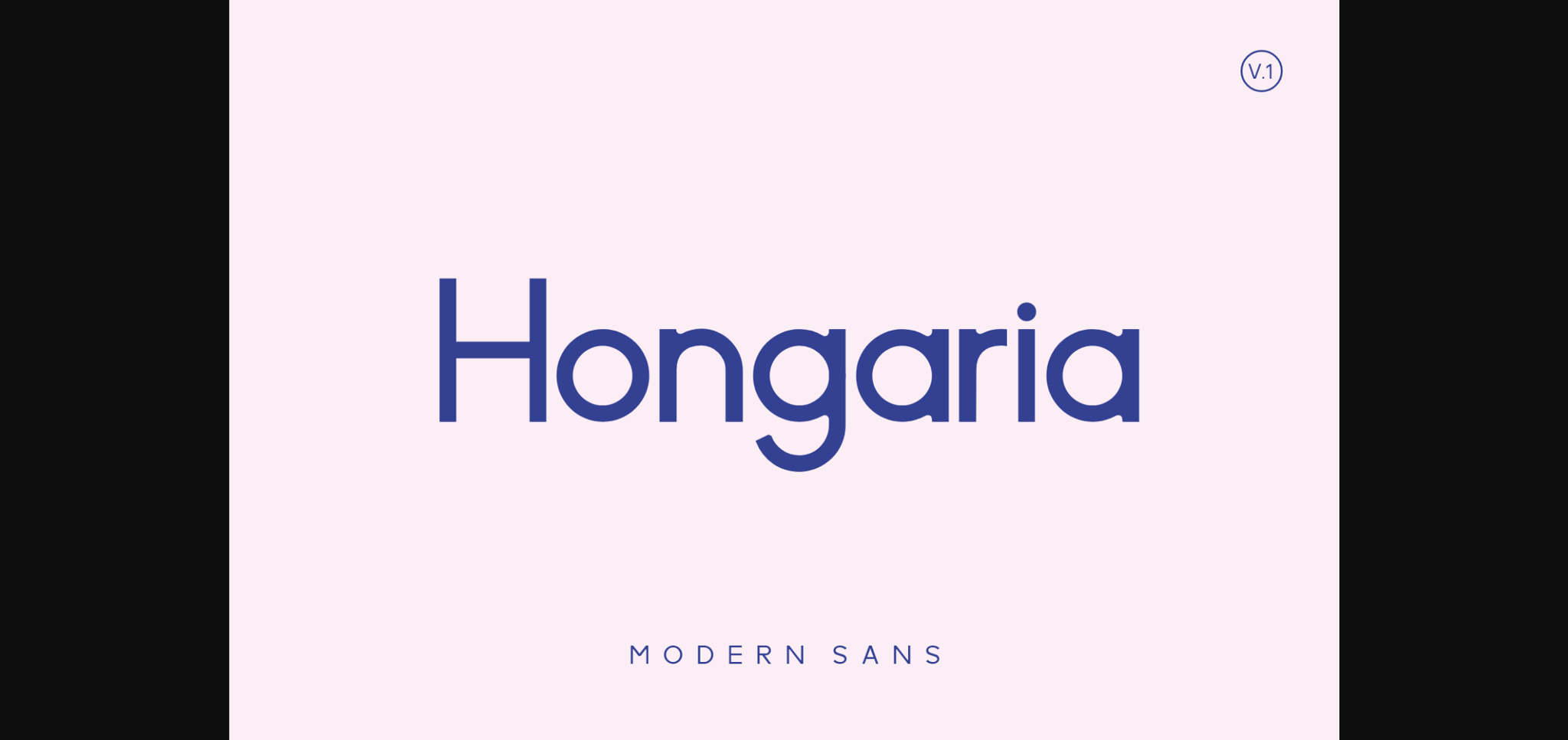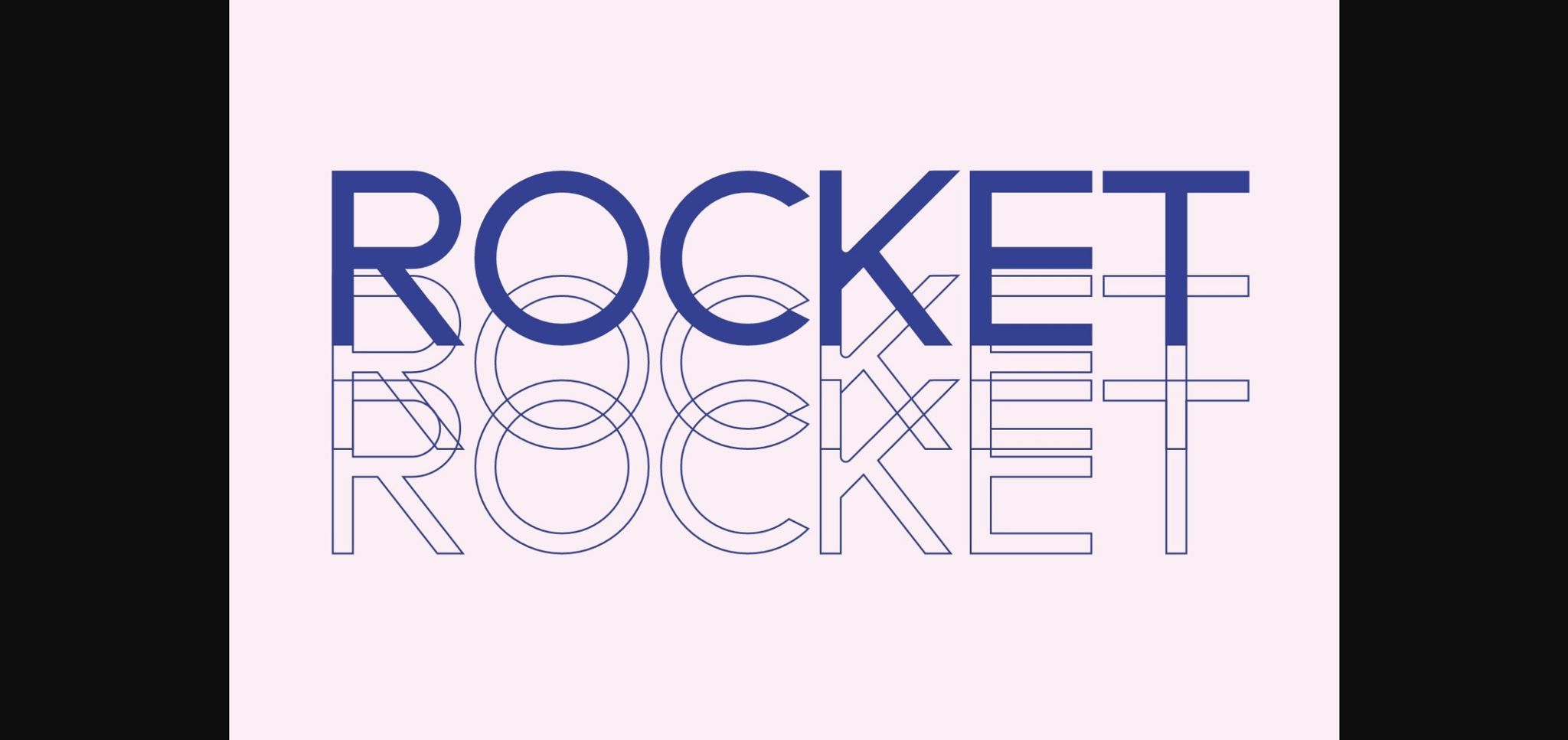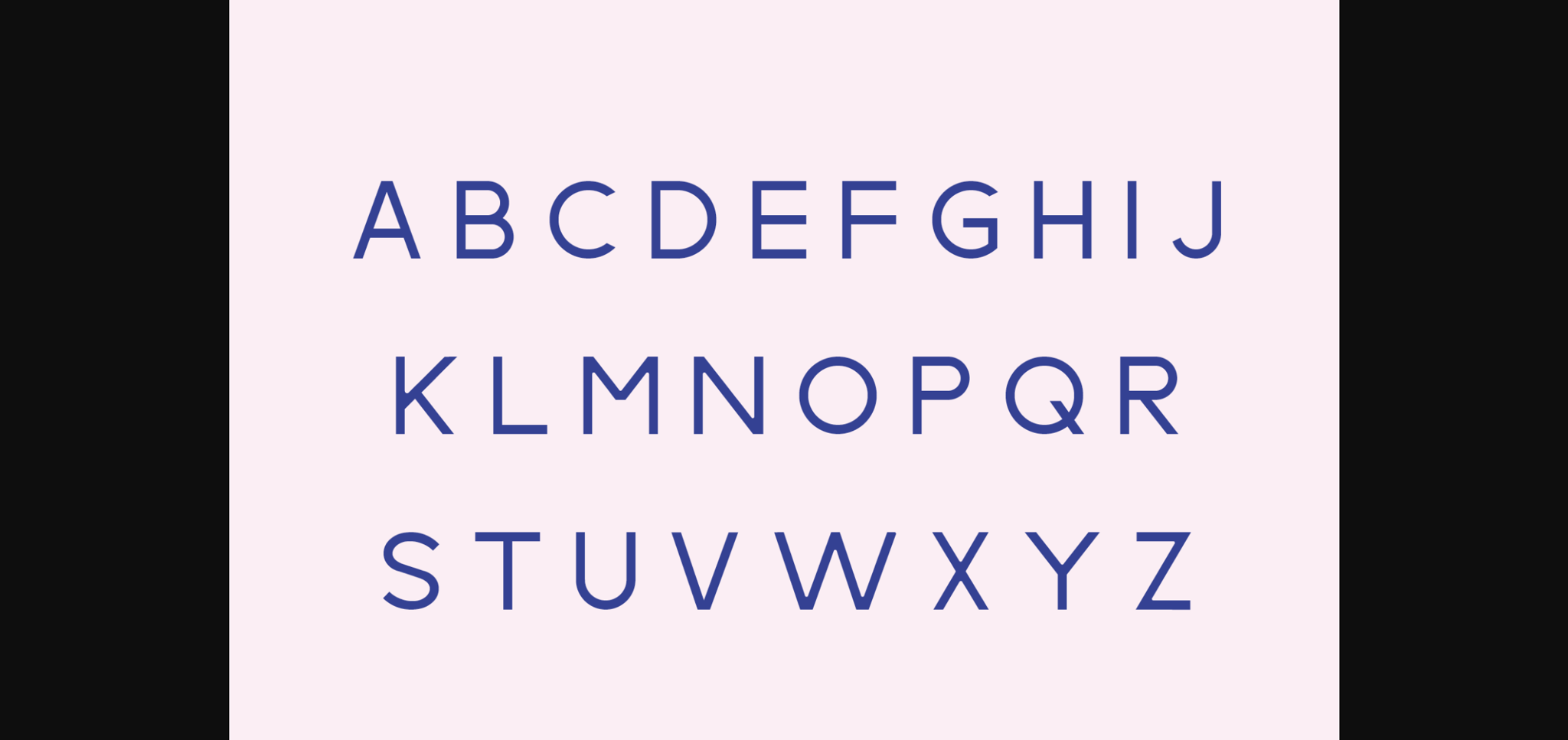
About Hongaria Font
Hongaria is a modern sans-serif font designed for future projects. The combination of symmetrical and geometric construction of upright uppercase and lowercase letters gives it a soft modern feel. Works great for movie posters, modern websites, flyers, and logo designs.